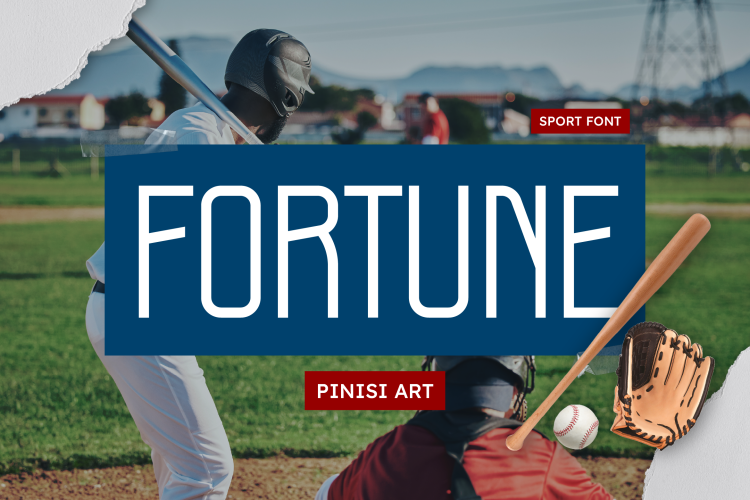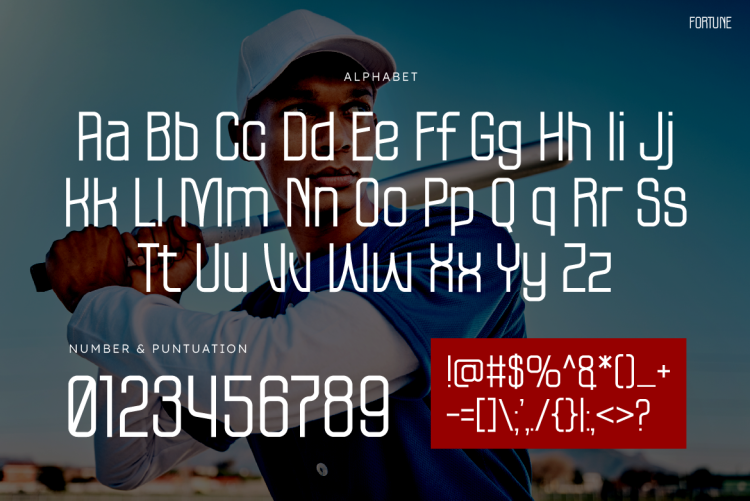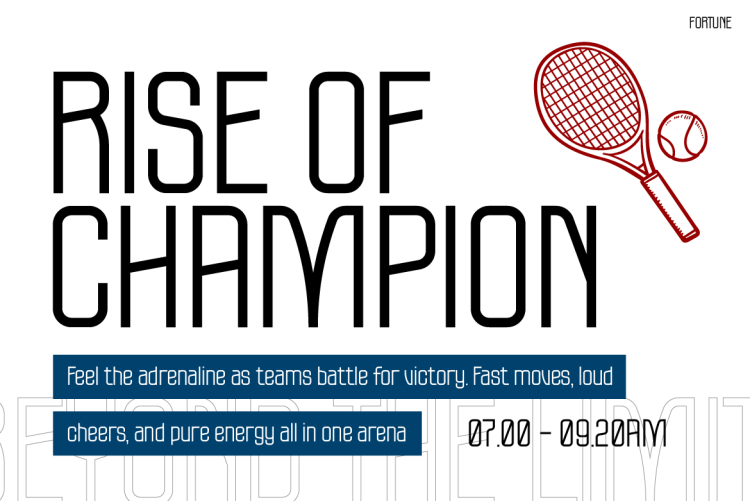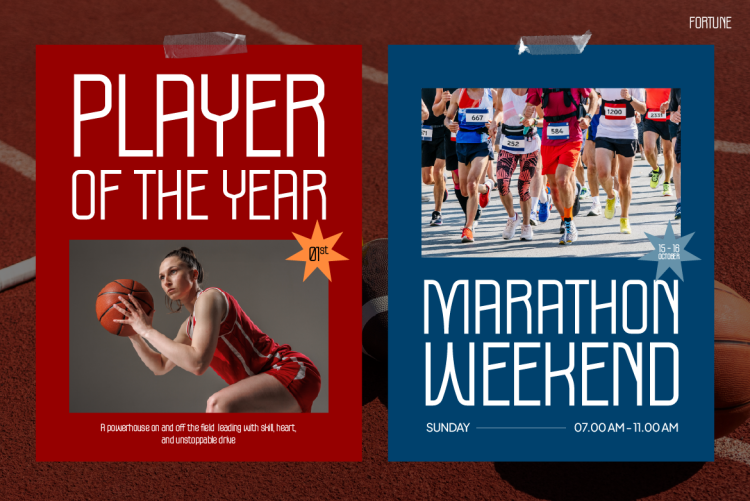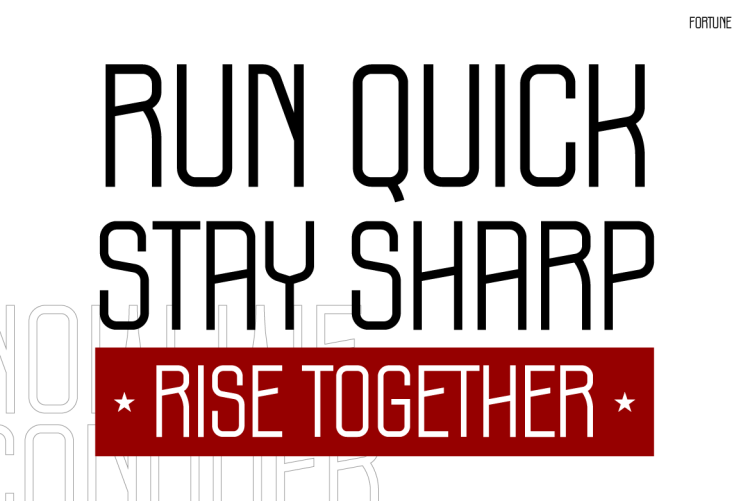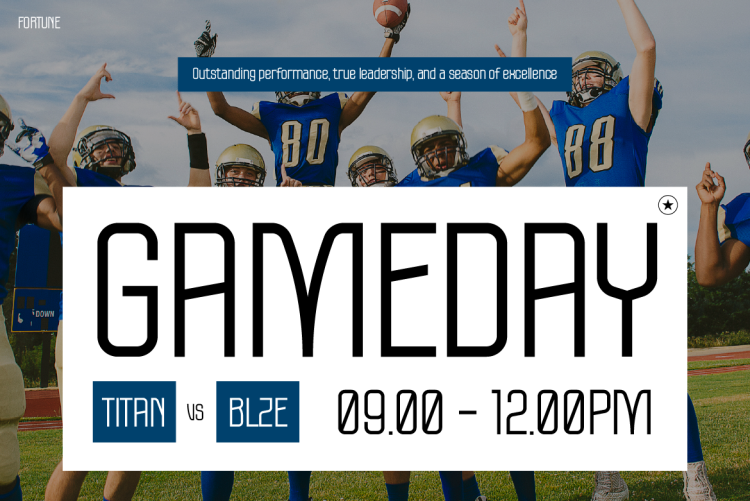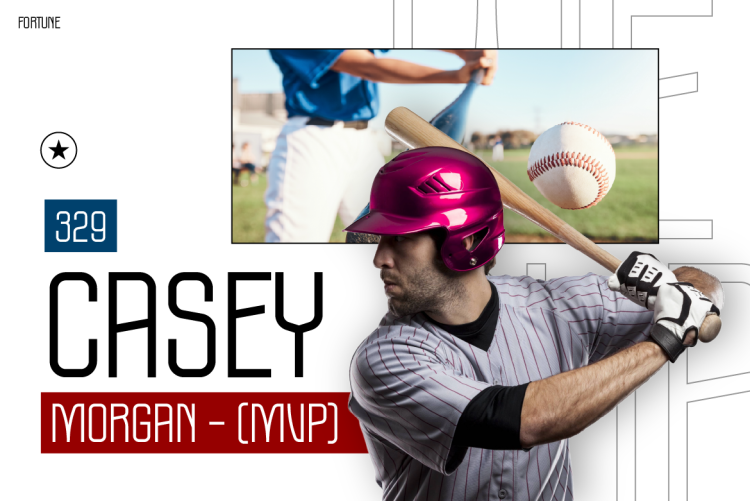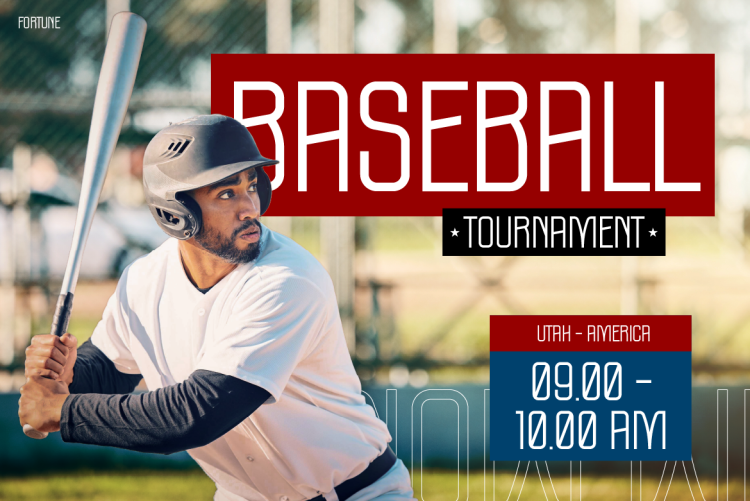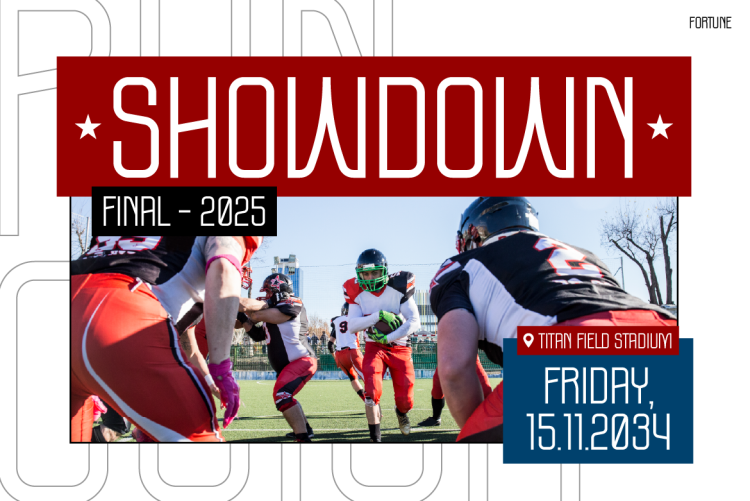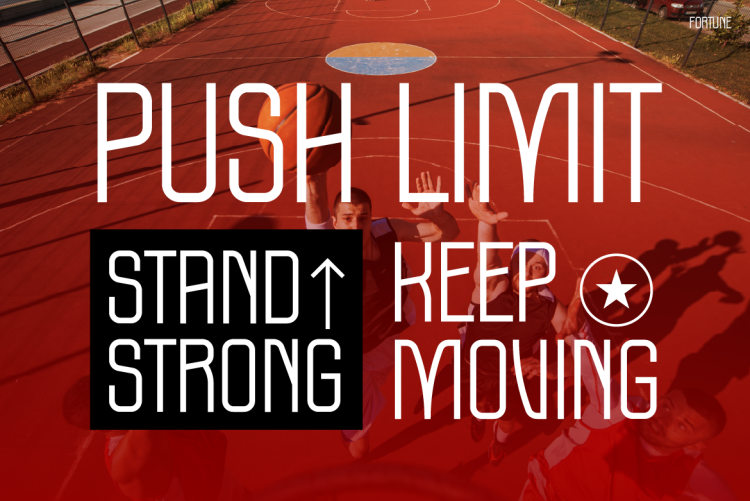
Sport Font Fortune โ Dynamic Power in Every Stroke
Sport Font Fortune is a modern and energetic typeface that captures the excitement, discipline, and spirit of competition. Its tall, geometric structure and clean bold lines make it stand out in any design. Moreover, its sharp edges and consistent rhythm express power, motion, and determinationโmaking it perfect for professional sports graphics and branding. Therefore, every word written with this font feels confident, fast, and full of purpose.
The beauty of Sport Font Fortune lies in its balance between strength and simplicity. Each letter is designed with precision to enhance readability and visual impact. In addition, the uppercase delivers intensity and leadership, while the lowercase offers versatility and flow. As a result, the font easily adapts to different media, from dynamic sports posters to event promotions and motivational content. Furthermore, its modern and athletic vibe adds professionalism and energy to every project.
Perfect For Designers, Teams, and Brands
Sport Font Fortune is ideal for designers, athletes, and content creators who want to bring strength and inspiration into their visuals. It suits sportswear branding, gym promotions, team identity design, and athletic campaigns. Additionally, marketers and event organizers can use it for posters, banners, social media content, or YouTube thumbnails to create consistent and high-impact visuals.
Because of its clear and modern shape, it also works perfectly for typography-based designs that need to express speed and power. Whether youโre designing for football, baseball, racing, or fitness, this font delivers confidence and drive.
Bring Your Game to the Next Level
With Sport Font Fortune, your words donโt just look strongโthey feel unstoppable.